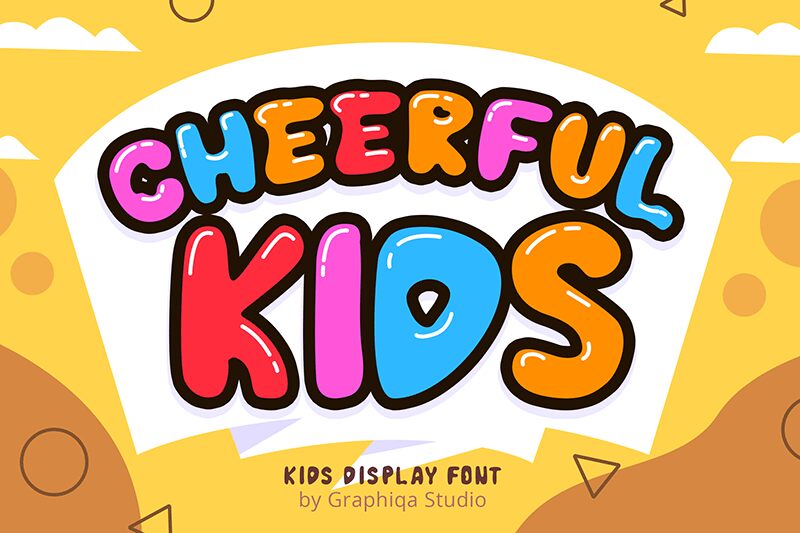
Cheerful Kids is a vibrant and playful display font designed by Graphiqa Studio. With its cartoon style and extra-bold weight, it's perfect for projects aimed at children, such as book covers, posters, packaging design, and even educational materials. This fun-loving font will add a touch of whimsy to any project and capture the attention of young audiences. Whether you're creating a logo for a kids' clothing brand or designing a website for an elementary school, Cheerful Kids is sure to bring joy and energy to your designs. So go ahead, let your inner child run wild with this delightful typeface!
Cheerful Kids